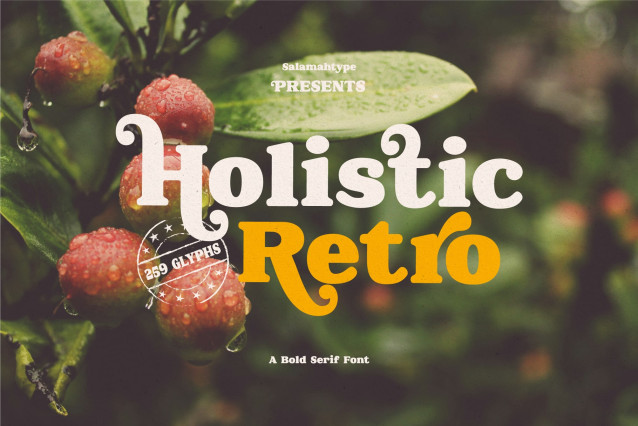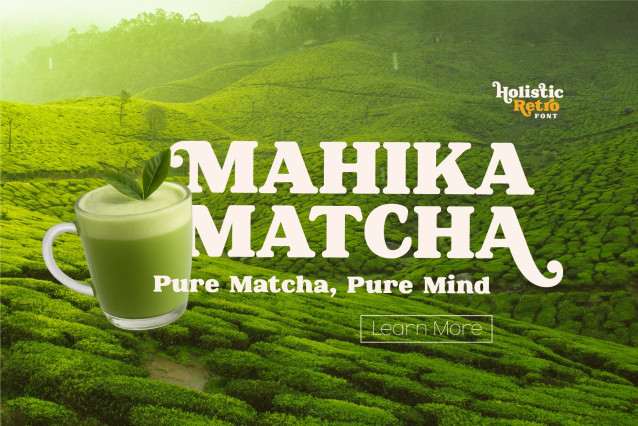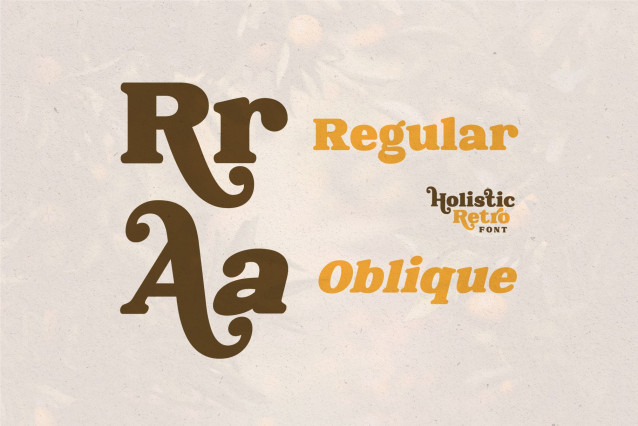
Holistic Retro – Vintage Serif Font
Holistic Retro is a bold smooth serif font with a retro vintage style that brings a touch of nostalgia to your designs. It includes lots of alternates for creative flexibility, perfect for creating eye-catching logos, branding, posters, social media posts, and digital projects.